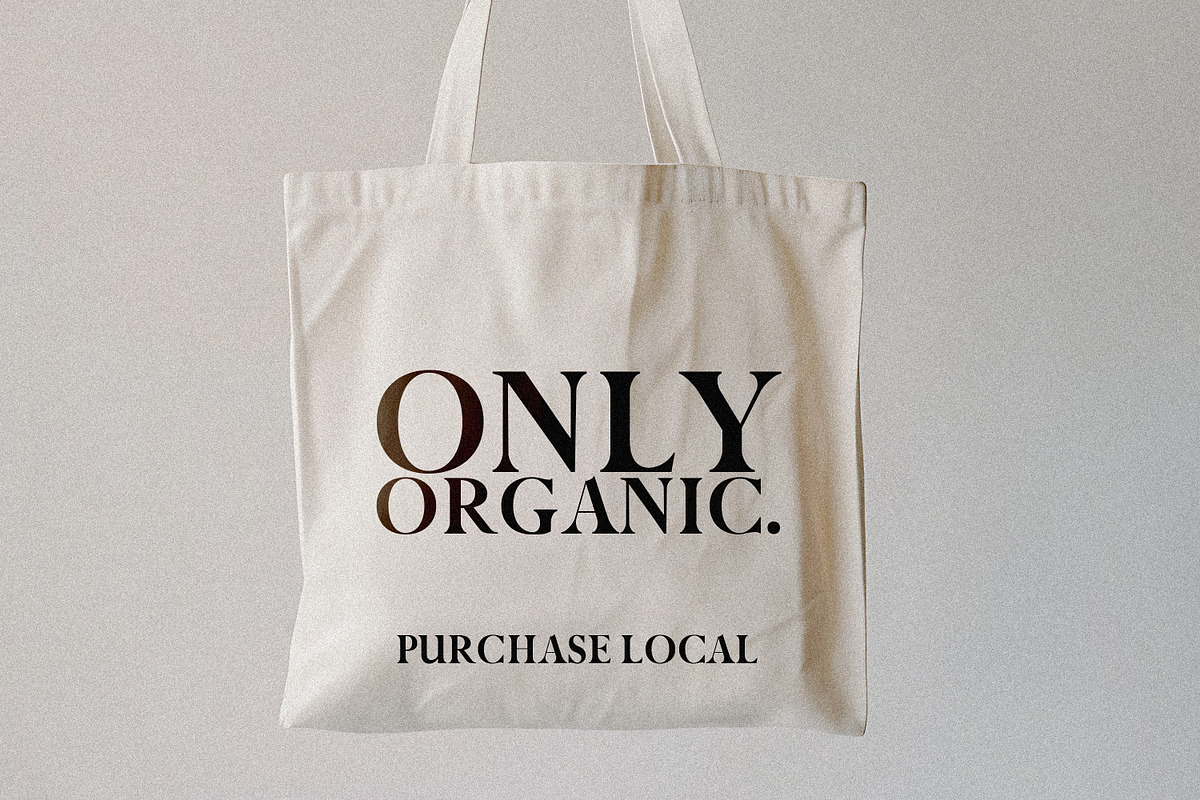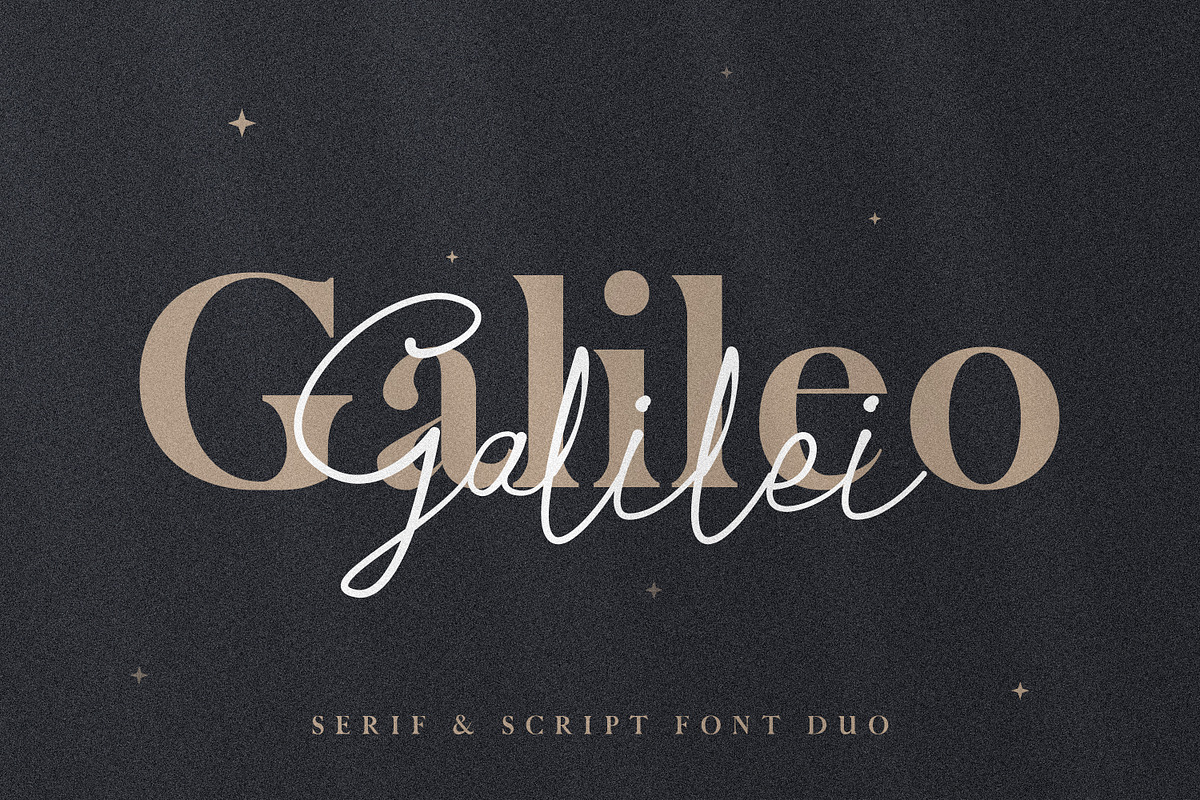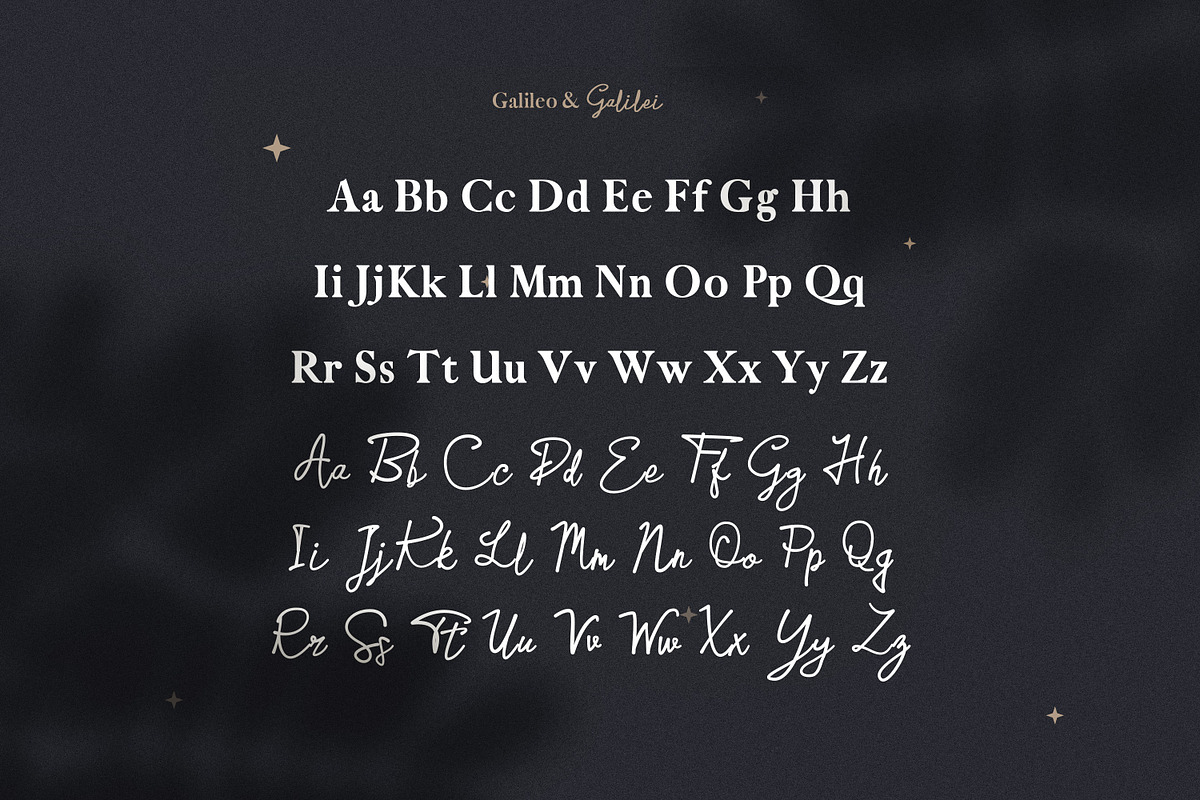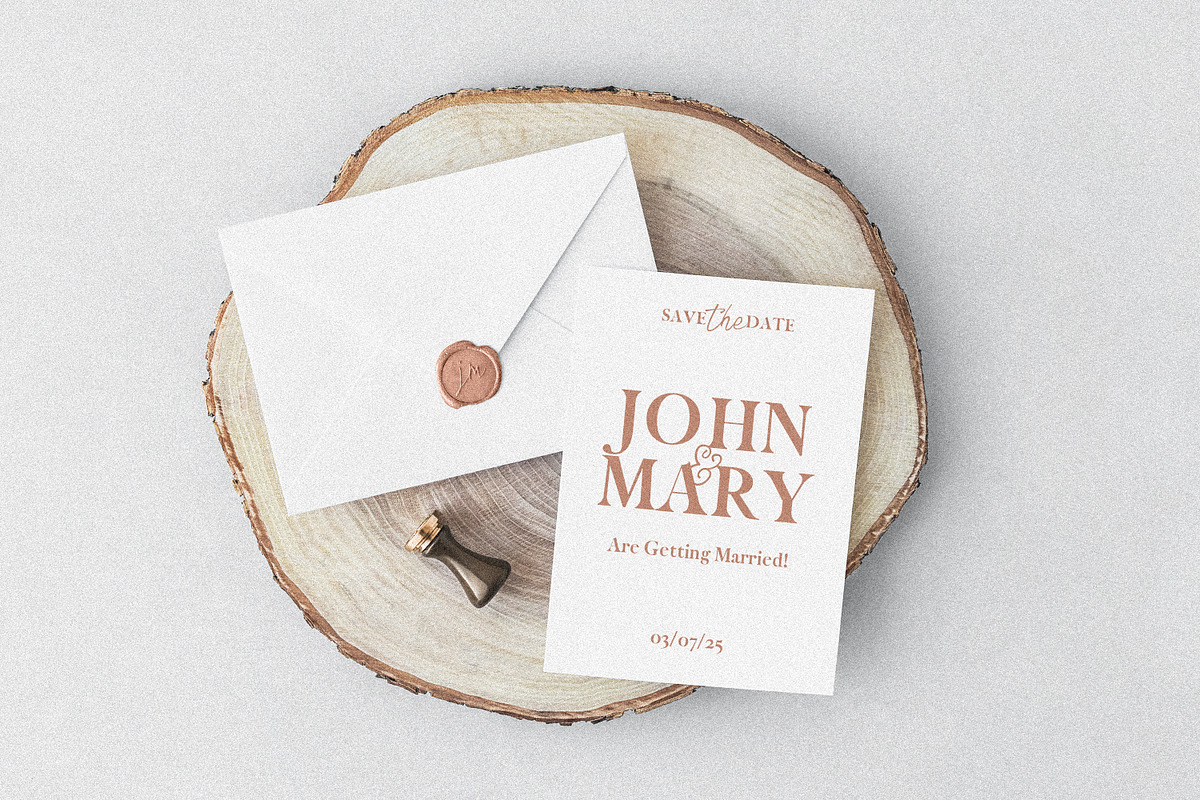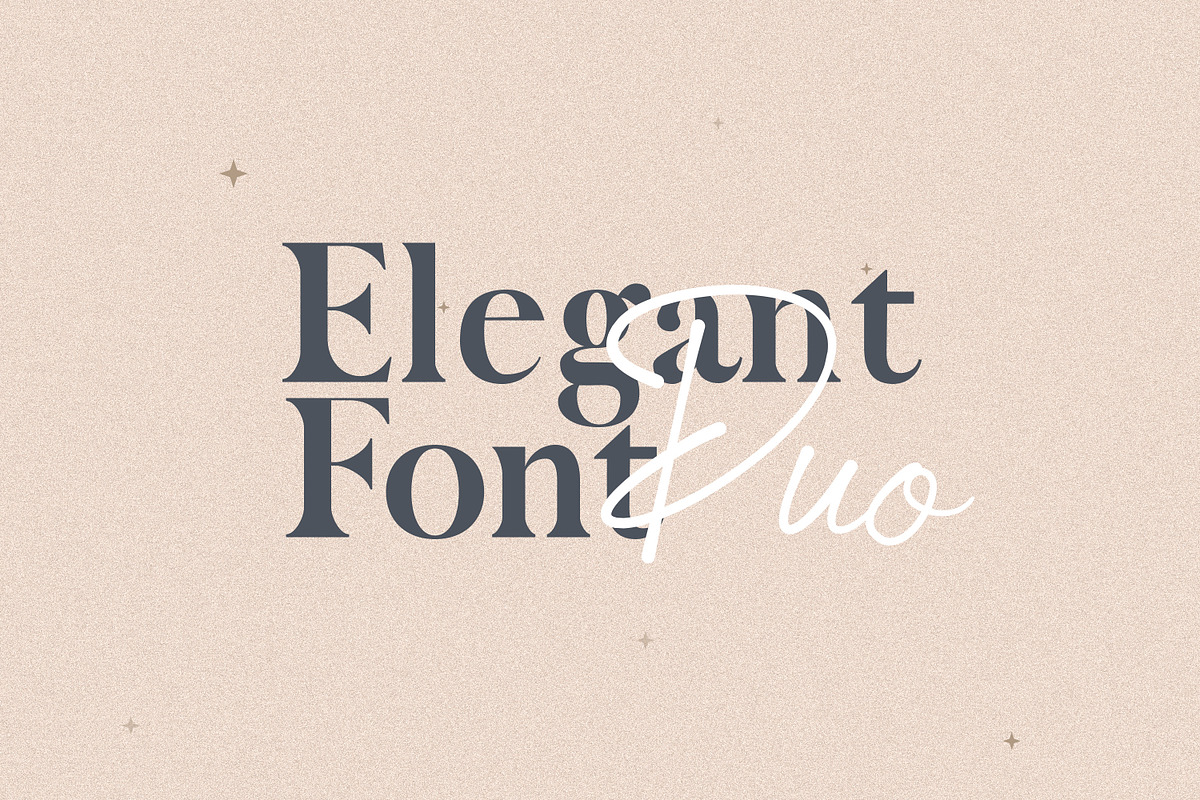
Galileo Galilei - Serif & Script Duo
Introducing Galileo Galilei - a modern pair of classic serif and handwritten script fonts.
The font duo pairs perfectly and makes it easier to create modern logos, posters, invitations, package designs and so much more.
The serif font works perfectly for all kinds of headlines and text copy and the script font adds a nice accent to the whole design/composition.
Both fonts include all the English characters, special characters, and basic multilingual glyphs.